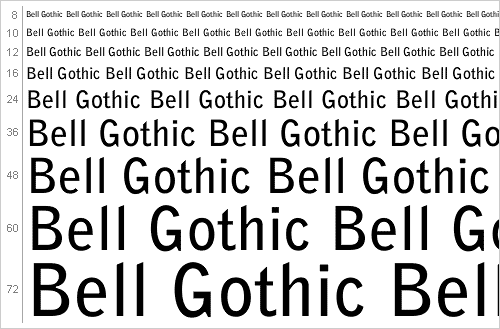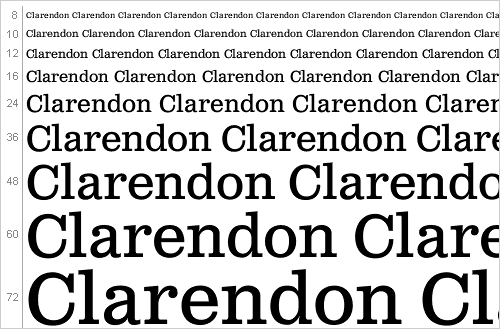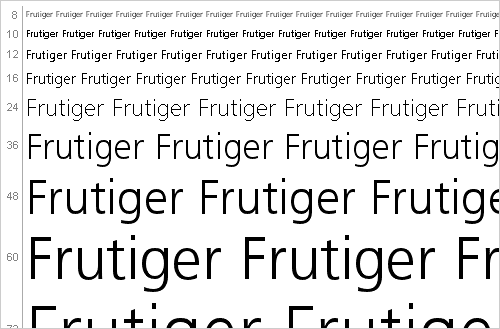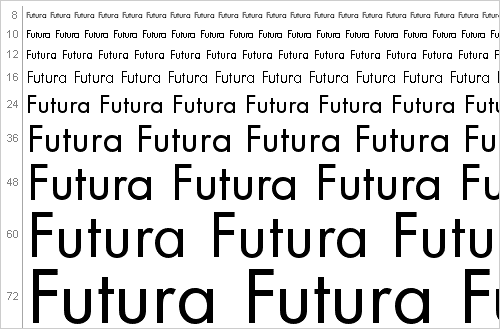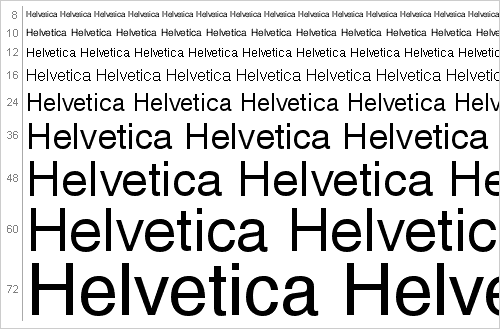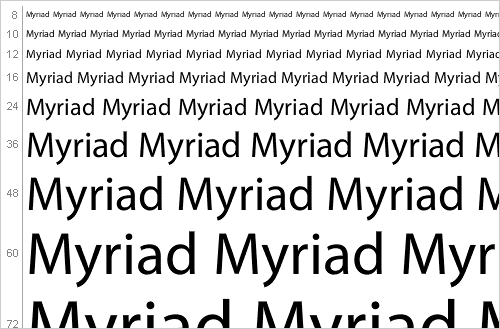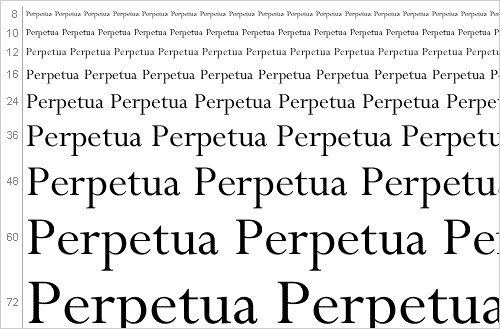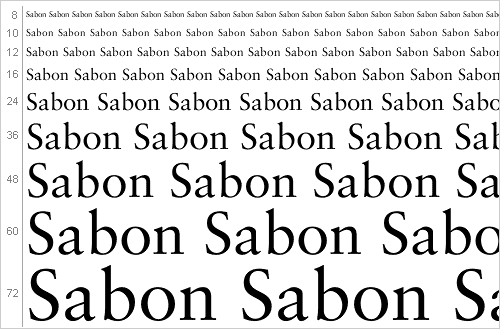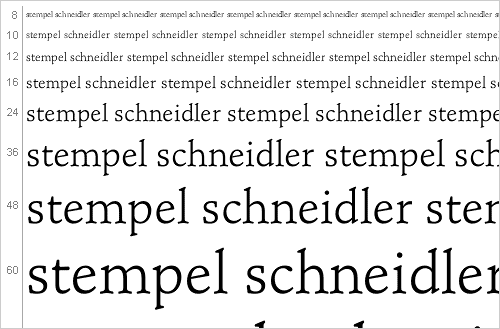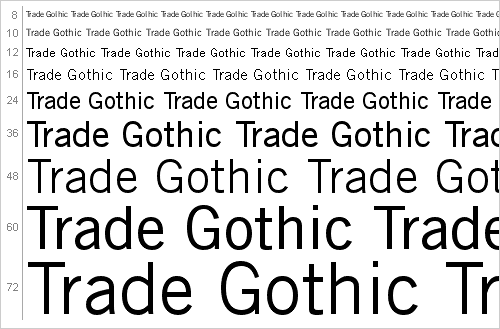
30 Fonts That All Designers Must Know and Should Own
Here are 30 of the Best Fonts / Typefaces that every designer must / should own sorted by alphabetical order. There are 15 serif fonts and 15 sans-serif fonts. These fonts will last you your whole career!
A brief description of what each font is best suited for is provided however are not limited to this.
15 Serif Fonts
What does serif mean?
1. Adobe Caslon
Magazines, journals, text books, corporate communication.
2. Adobe Garamond
Textbooks and magazines
3. Bembo
Posters, packaging, textbooks.
4. Bodoni
Headlines, text, logos.
5. Clarendon
Dictionaries and headlines.
6. Courier
Tabular materials, technical documentation, word processing.
7. Excelsior
Newsletters, Reports, Proposals.
8. Lucida
Low resolution printing, small point sizes, reversed out half tones.
9. Minion
Limited edition books, newsletters, packaging.
10. Perpetua
For displays with fine lettering, long pages of text, chiseled text.
11. Sabon
Books and corporate communication.
12. Stempel Schneidler
For displays and fine publications that need a legible text type.
13. Times New Roman
Newspapers, magazines, corporate communication.
14. Trajan
Books, magazines, posters, billboards, anything to do with the ages or religion.
15. Walbaum
Magazines, journals, text books, corporate communication.
15 Sans-Serif Fonts
What does sans-serif mean?
1. Akzidenz Grotesk
Large Signage, all purpose for print media.
2. Avenir
For books with large amounts of text
3. Bell Centennial
For listings and very poor printing conditions.
4. Bell Gothic
For very small amounts of text that contains large amounts of information.
5. DIN
For signage, posters and displays.